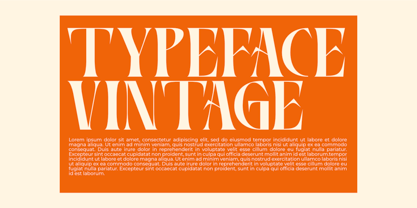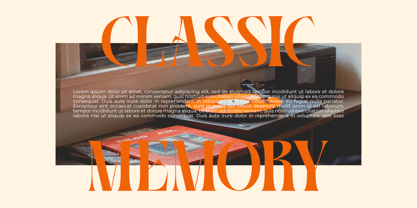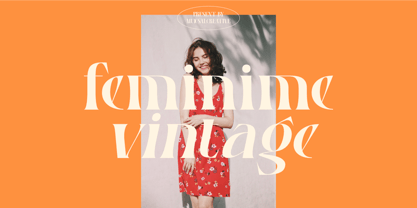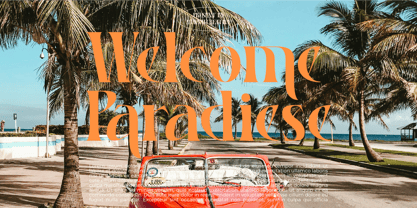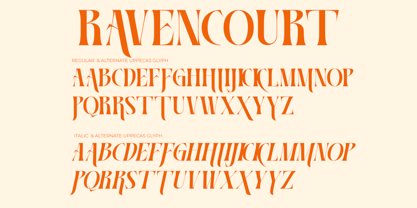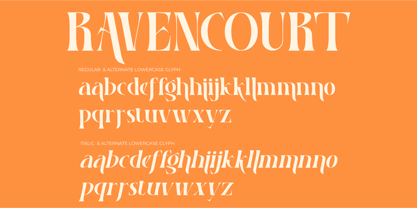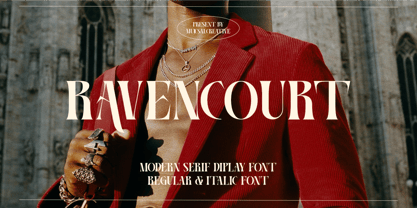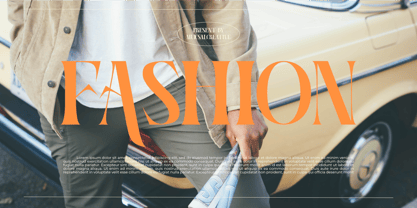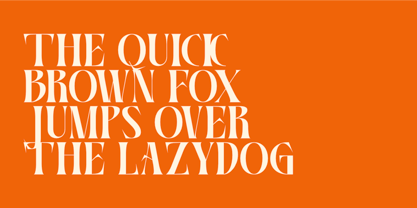
Ravencourt
by Muksal Creatives
The Ravencourt Font Family was designed by Muksalmina and published by Muksal Creatives. Ravencourt contains 2 styles and family package options. More about this family
Ravencourt is a high-contrast display serif font that radiates elegance, drama, and timeless sophistication. With its sharp terminals and graceful curves, Ravencourt brings a strong theatrical flair alongside a touch of classic refinement. This font is perfect for luxury branding, editorial layouts, book covers, and eye-catching headlines. Additionally, Ravencourt shines in retro and vintage-themed designs, thanks to its unique letterforms and nostalgic visual character. Available in two styles—Regular and Italic—Ravencourt offers flexibility and expressive range for your creative projects. Whether used in uppercase or mixed case, it delivers a bold and memorable presence in any composition.
Designers: Muksalmina
Foundry: Muksal Creatives